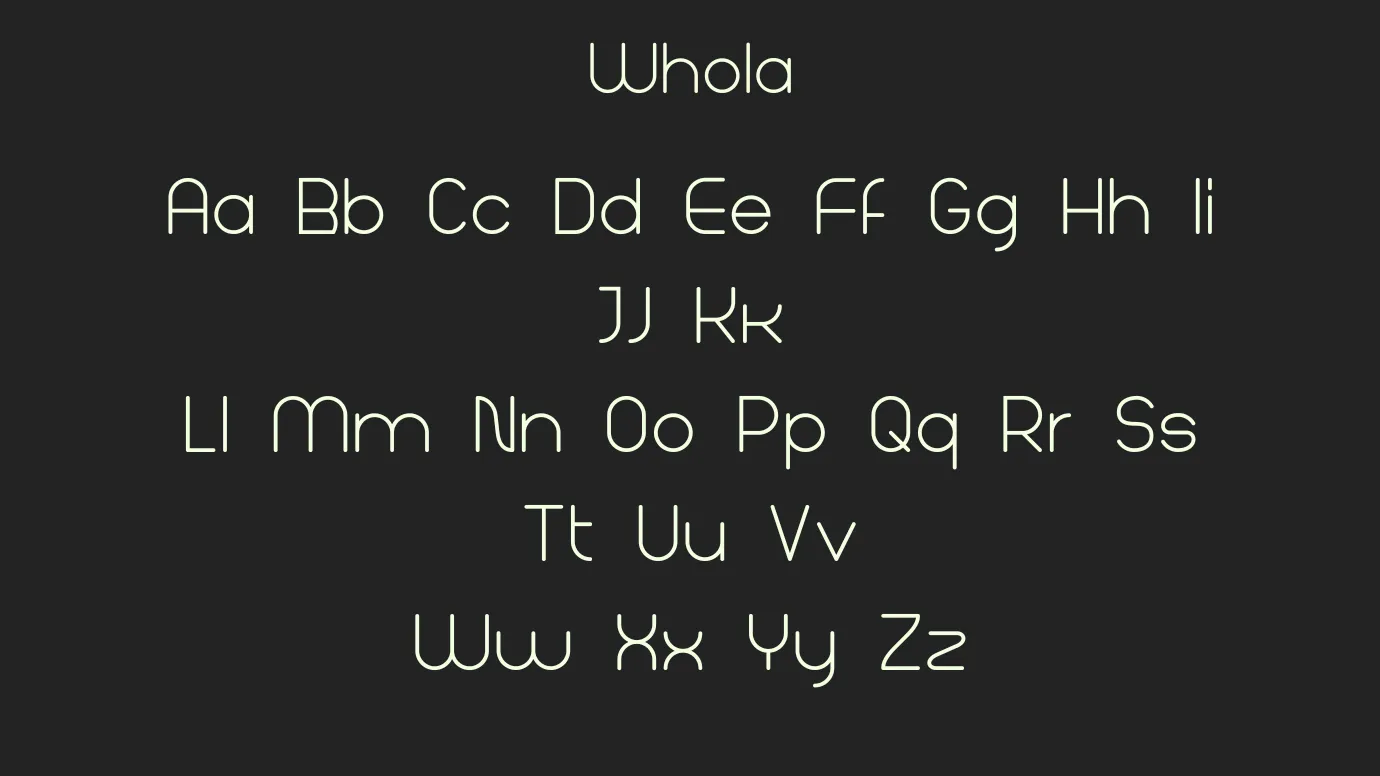
Whola Font Free Download
Whola Font is an elegant and clean Sans-Serif typeface. The look of this font provides high readability to your projects. You can make all types of personal and commercial projects by using this font.
Whola Font